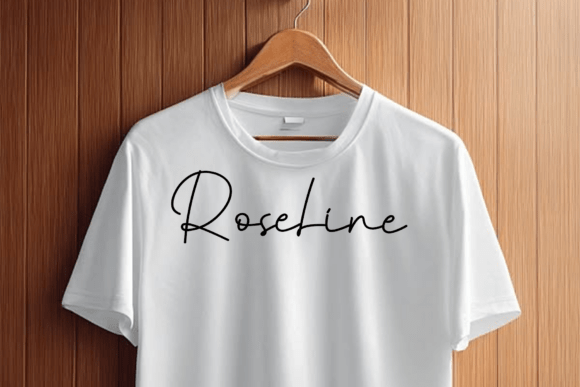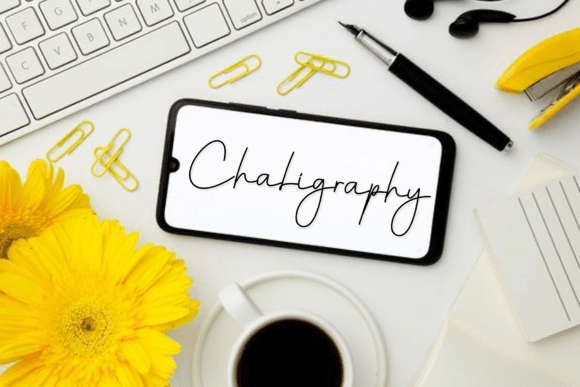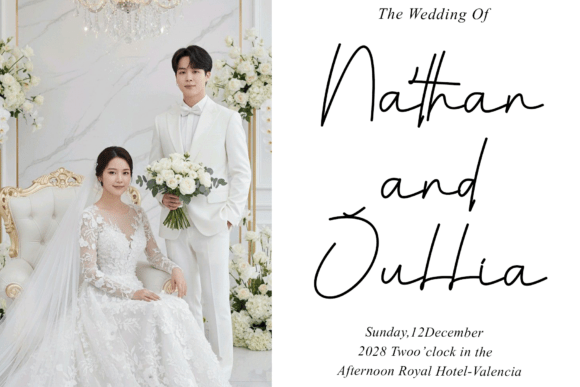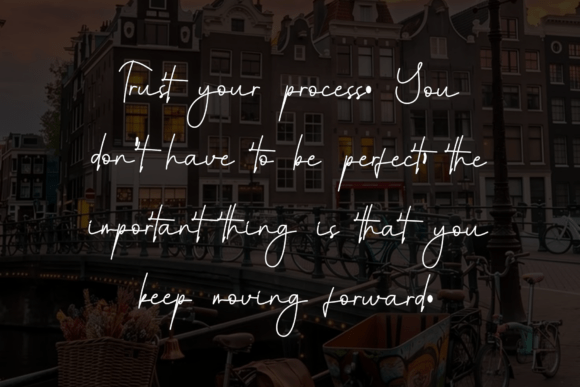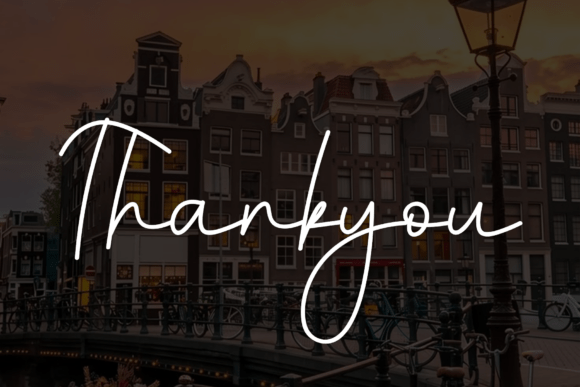
The Amsterdam Font: Elevating Your Design with Elegance and Clarity
I’ll never forget the moment I stumbled upon the Amsterdam font while working on a travel photography project. My client wanted a sophisticated, yet approachable look that would evoke the freshness of a mountain breeze. As I scrolled through font libraries, Amsterdam caught my eye with its tall, thin strokes and subtle, airy slant. It was love at first sight! ✨ In this article, I’ll share my experience with Amsterdam, its features, and how to make the most of it in your designs.
- ✅ Unique and professional look that stands out in modern handwritten collections
- ✨ Clean and approachable style perfect for travel photography, outdoor gear branding, and sophisticated web design
- 💡 Refined aesthetic with a sense of clarity and crisp elegance
- 🌟 Versatile and highly legible, even at smaller font sizes
While Amsterdam is an excellent font, there are a few things to keep in mind: 🤔
- ⚠️ Limited availability of stylistic alternates, which might restrict creative variations
- ⚠️ May not be the best fit for body text due to its elegant, yet delicate nature
Amsterdam was designed with the goal of creating a fresh, modern take on handwritten fonts. The designer aimed to evoke a sense of clarity and crisp elegance, perfect for designs that require a touch of sophistication. While the real story behind Amsterdam’s creation might be unknown, its unique features and refined aesthetic make it a standout in the world of typography.
Q: What makes Amsterdam suitable for travel photography?
A: Amsterdam’s clean and approachable style, combined with its elegant aesthetic, makes it an excellent choice for travel photography. It adds a touch of sophistication to your images without overpowering them.
Q: Can I use Amsterdam for body text?
A: While Amsterdam is highly legible, its delicate nature makes it more suitable for headlines, titles, and short paragraphs. For body text, consider using a font with a more robust design.
Q: Does Amsterdam support OpenType features?
A: Yes, Amsterdam supports OpenType features, including ligatures, stylistic alternates, and glyphs. Experiment with these features to add visual interest to your designs.
Q: Is Amsterdam suitable for branding and logos?
A: Absolutely! Amsterdam’s unique and professional look makes it an excellent choice for branding and logos. Its refined aesthetic and elegance will help your brand stand out.